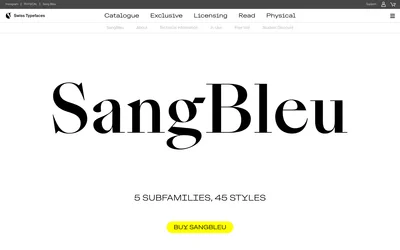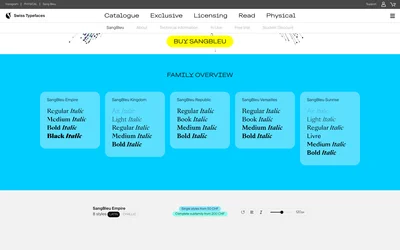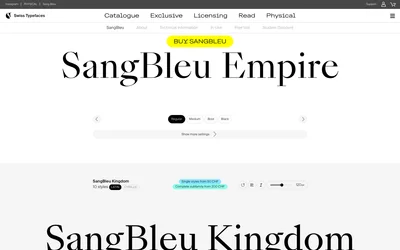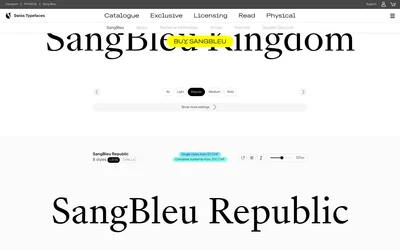
Heldane vs Sangbleu
Heldane and Sangbleu are both serif typefaces sharing a elegant foundation. Where Heldane leans editorial, display, Sangbleu brings high contrast, fashion. Compare which suits your Editorial project.
Heldane
ElegantModern
EditorialDisplay
Sangbleu
High Contrast
ElegantLuxurious
Fashion
Feature Heldane Sangbleu
Classification serif serif
Variable Font No No
Weights Multiple Multiple
Italics Yes Yes
Language Support latin, latin-extended latin, latin-extended
Source Klim Type Foundry Swiss Typefaces
Recommended: Heldane
• editorial, display design character
• Suited for Display
• From Klim Type Foundry
Consider: Sangbleu
• high contrast, fashion design character
• Suited for Fashion
• From Swiss Typefaces